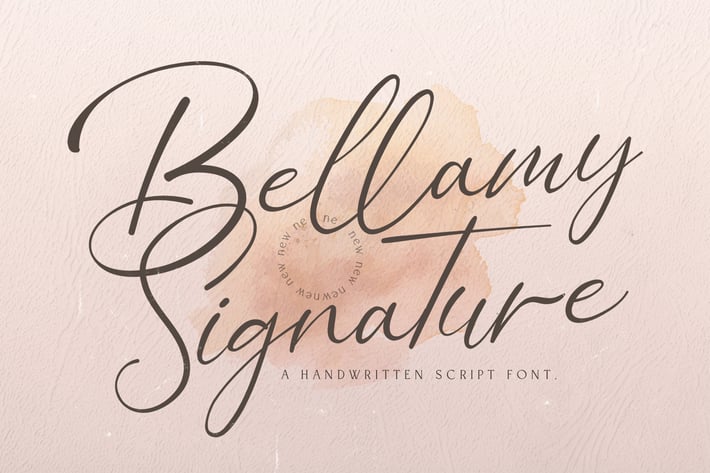
Bellamy Signature - Handwritten Font
Introducing Bellamy Signature - Handwritten Font
Bellamy Signature is a stylish handwritten script font. This enchanting font was made with digital brush pen strokes and it features an authentic feel. Use it for wedding invitations, business cards, logos, signatures, and much more!